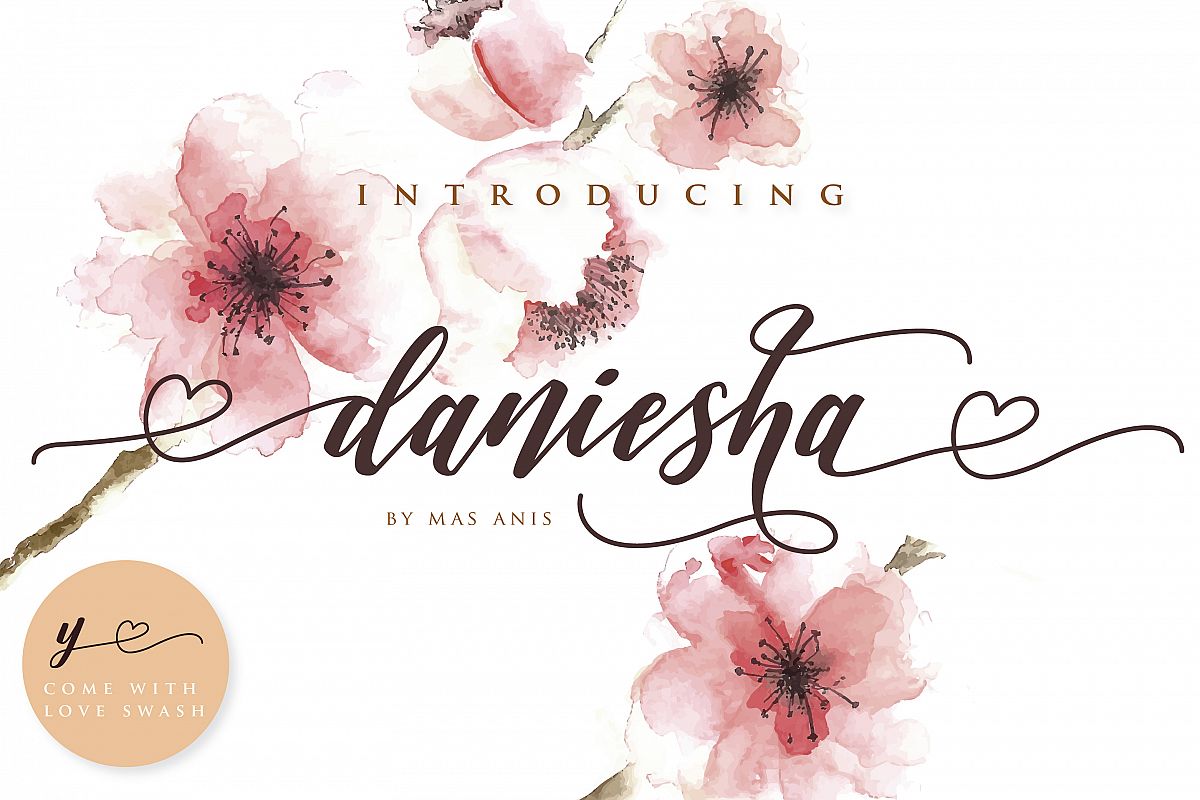
Daniesha
Daniesha is  a new fresh, unique & modern script with a handmade calligraphy style and decorative characters, a unique blend of classic and modern fonts.
Daniesha Font is suitable for wedding, quote, greeting cards, bussiness card, event, invitation, escort card, table number, header menu, display, logo, blog slider, branding material, custom address, stamp, packing, posters, and more!Includes a lot of alternative and beautiful swirls in fonts including styles, Alternates, Swashes, etc.
• Basic Latin AZ and az
• Symbol
• Stylistic Set
• Initial Alt
• Terminal Form
• Contextual Alternate
• Love swashes alternate
• 365 Glyphs
• PUA Encode
• Latin Pro Support Character